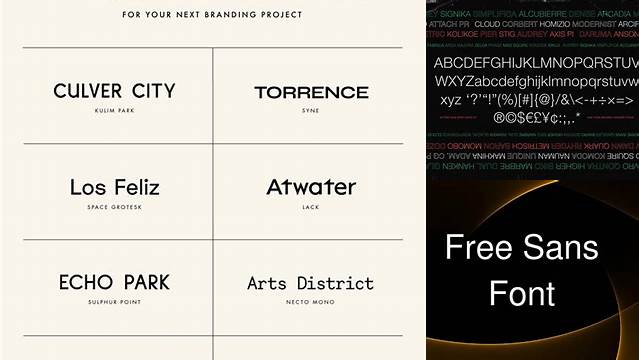
Hey guys! Are you on the hunt for the perfect free sans font? Look no further! In this comprehensive guide, we'll dive deep into the world of free sans font downloads, exploring everything from where to find them to how to use them effectively. Let's get started!
1. Understanding the Appeal of Free Sans Fonts
So, why are free sans fonts so popular anyway? Well, their clean and minimalist design makes them incredibly versatile. Whether you're working on a website, a presentation, or even a simple poster, a good sans serif font can add a touch of modern elegance. Plus, who doesn't love the word 'free'? The accessibility of these fonts allows designers and creatives to experiment without breaking the bank, fostering innovation and exploration. Many free sans fonts also come with extensive character sets, including multiple weights and styles, providing a wide range of options for different design needs. This versatility ensures that you can find the perfect font for any project, making your designs look polished and professional without the cost. Furthermore, the open-source nature of many free sans fonts encourages community involvement and continuous improvement, resulting in high-quality resources that rival paid fonts. It’s a win-win situation for everyone involved!
3. Key Features to Look for in a Free Sans Font
Not all free sans fonts are created equal. Here's what to keep an eye out for:
- Readability: Can you easily read the font at different sizes? Readability is paramount when choosing a free sans font, especially for body text and user interfaces. A font that is difficult to read can frustrate users and hinder their ability to understand your message. When evaluating a free sans font for readability, consider factors such as letter spacing, character shapes, and overall visual clarity. The font should be easily legible at various sizes, from small captions to large headlines. Pay attention to the distinctiveness of individual characters, ensuring that letters like